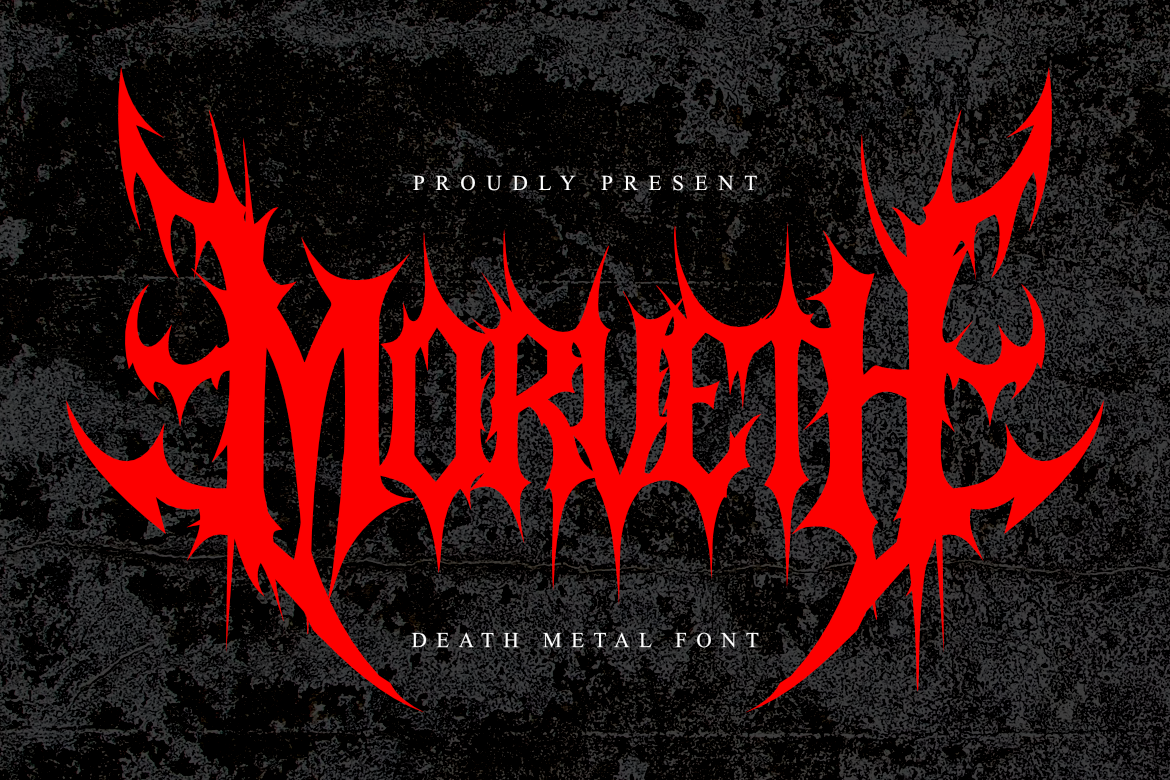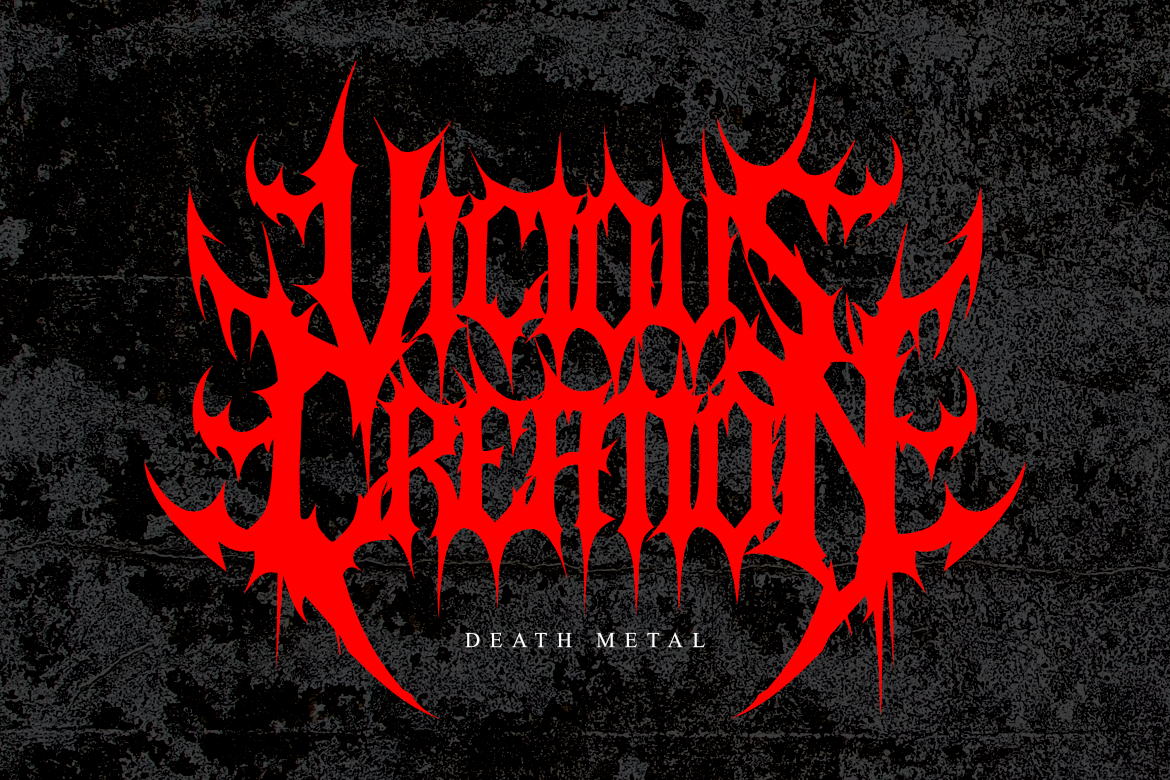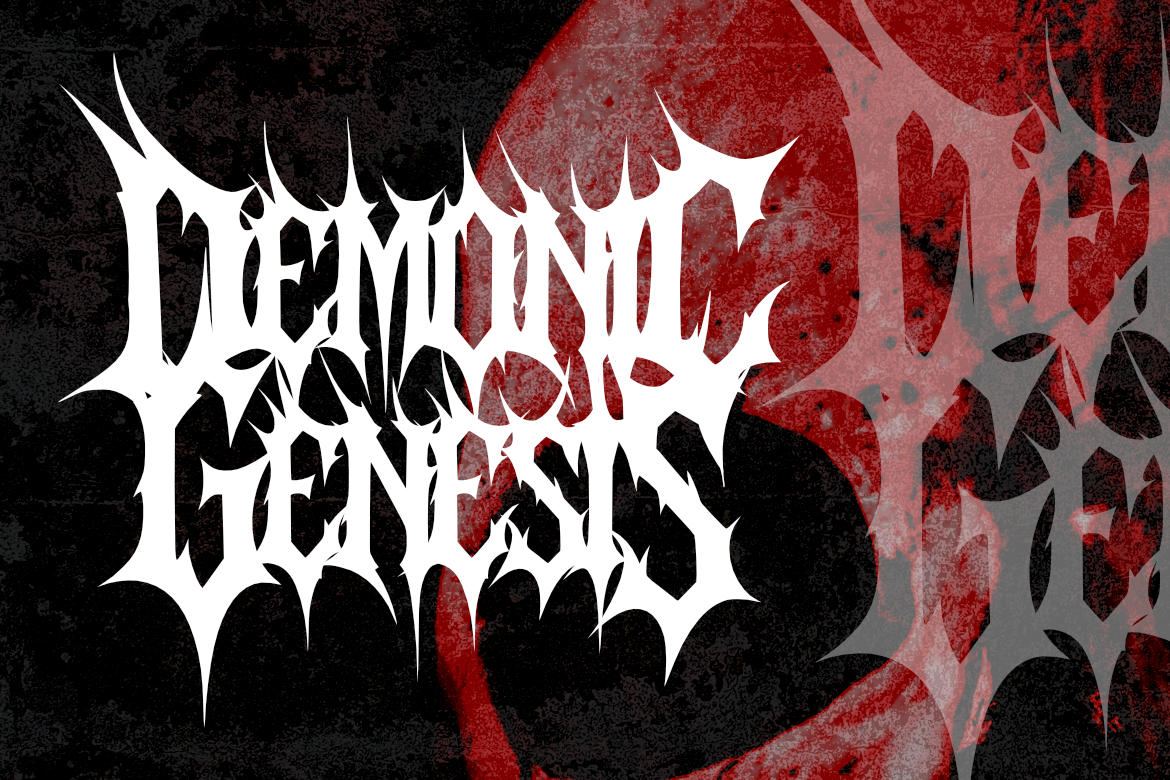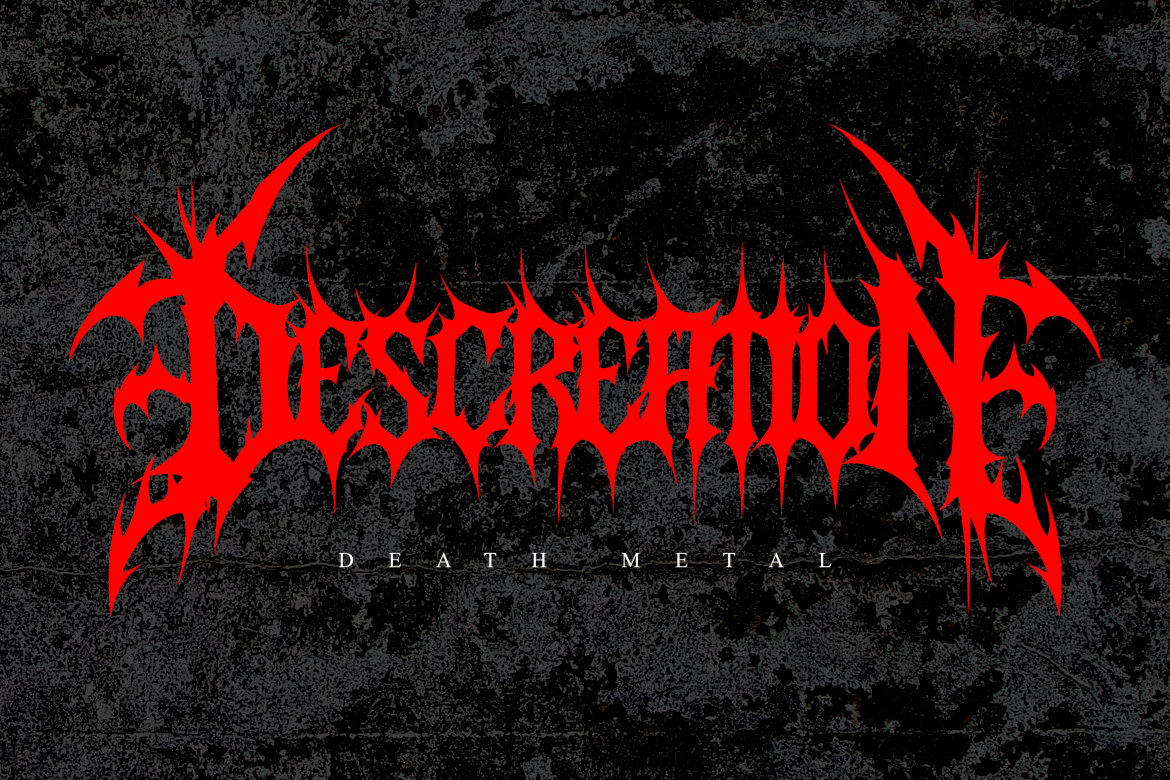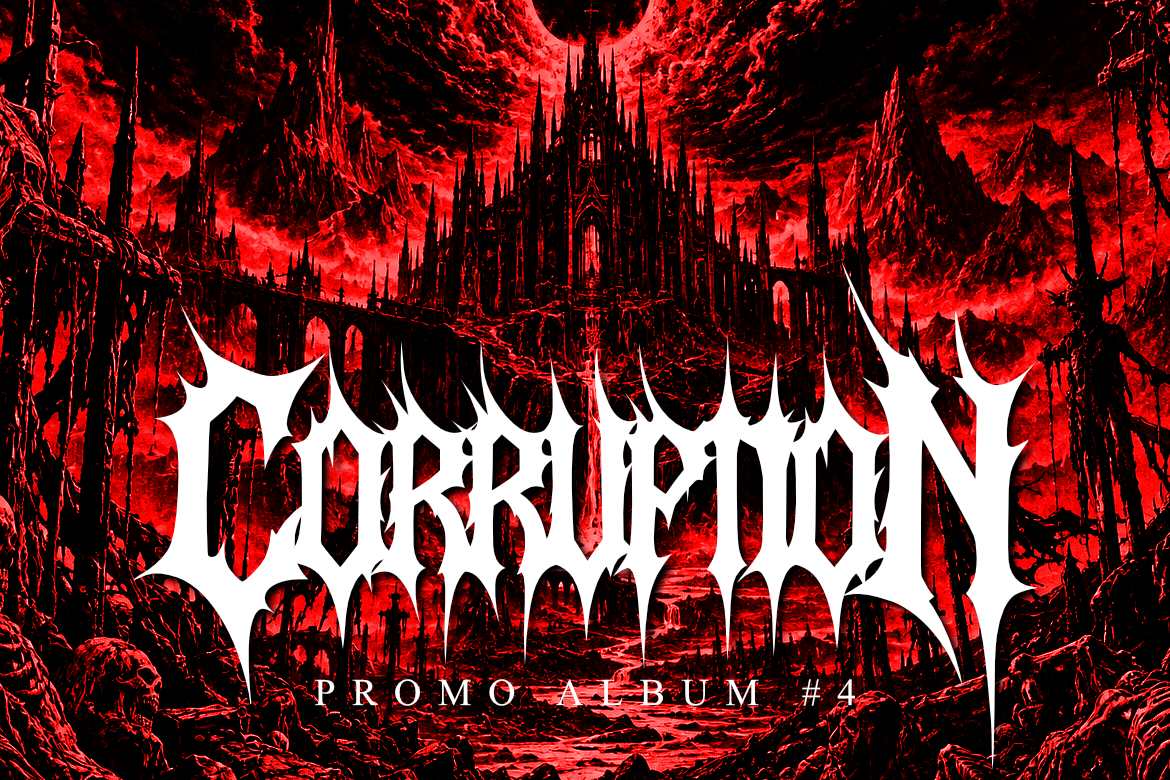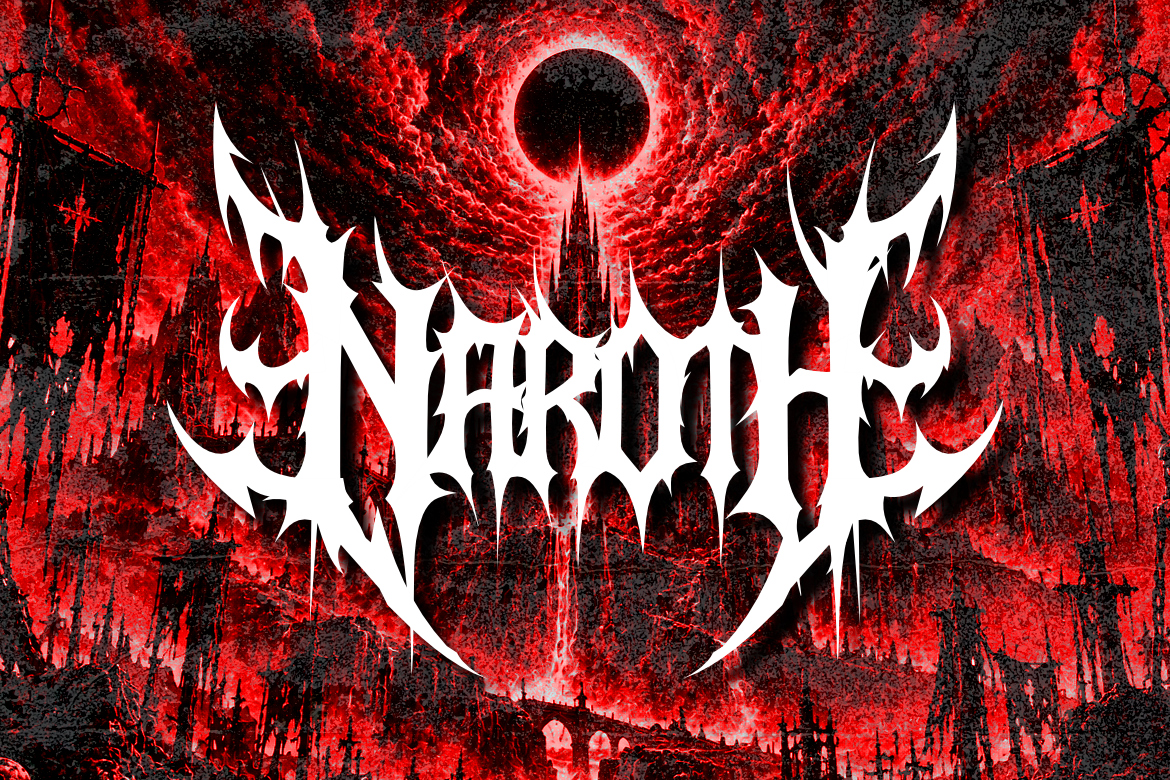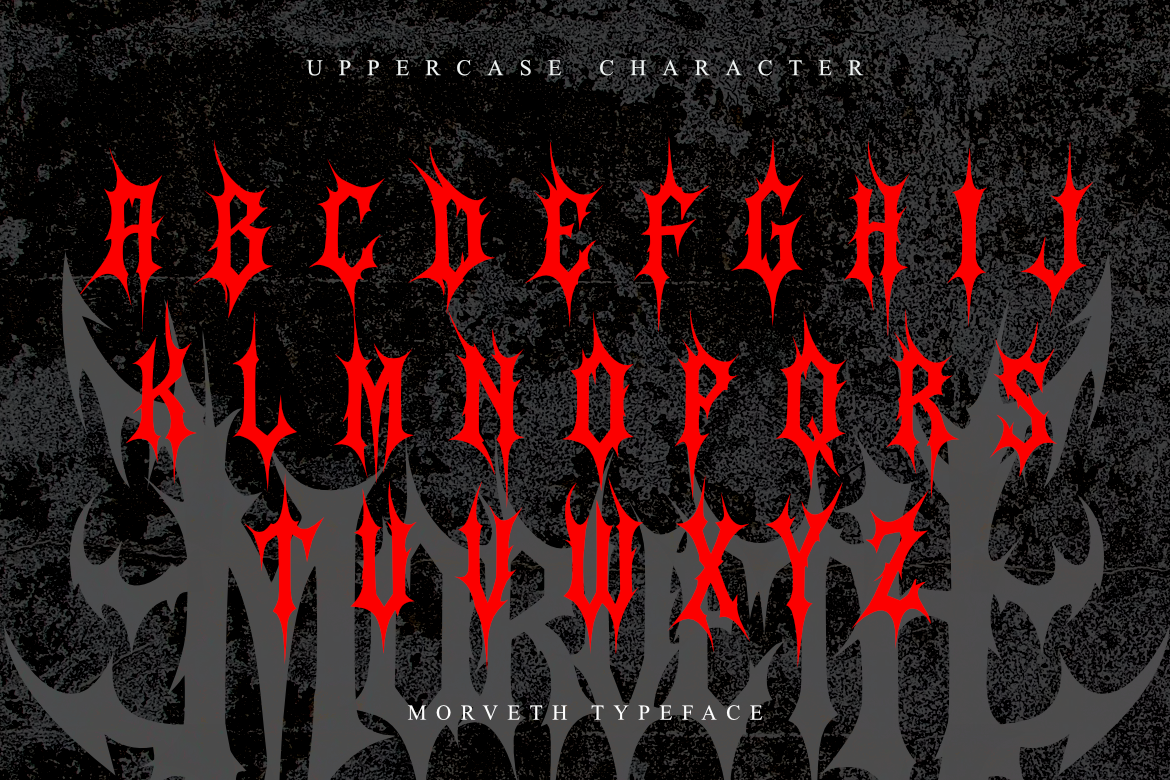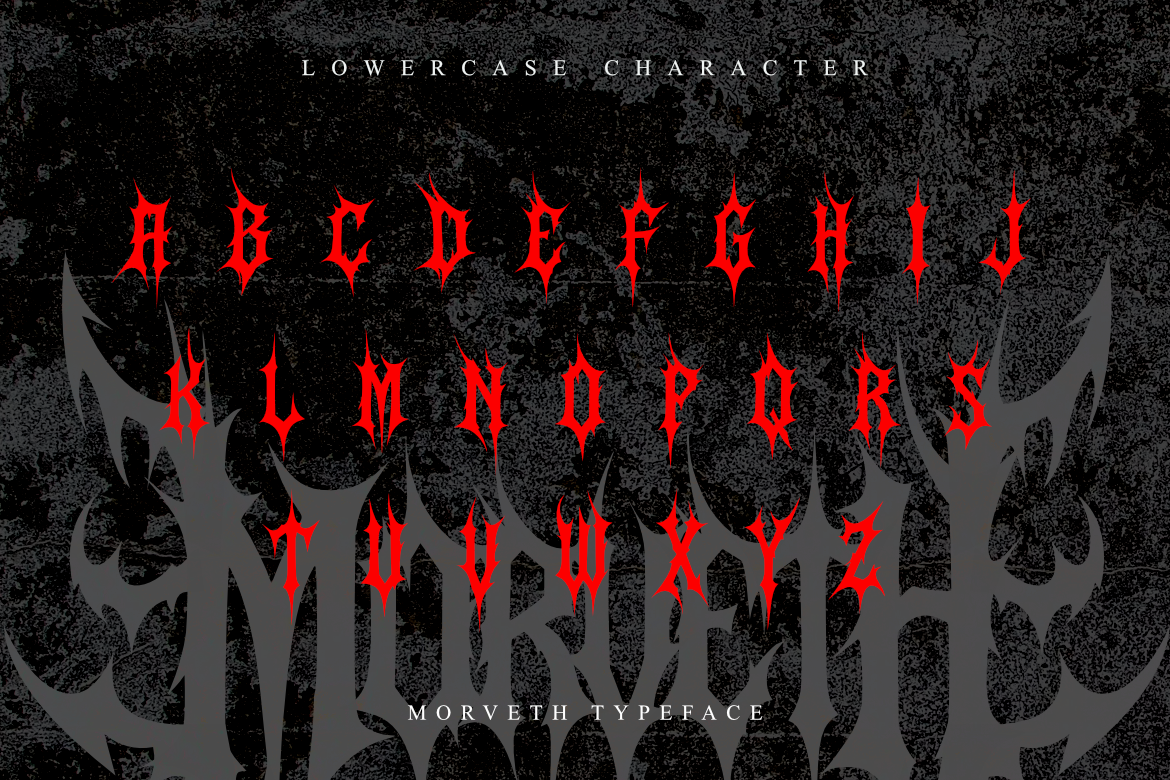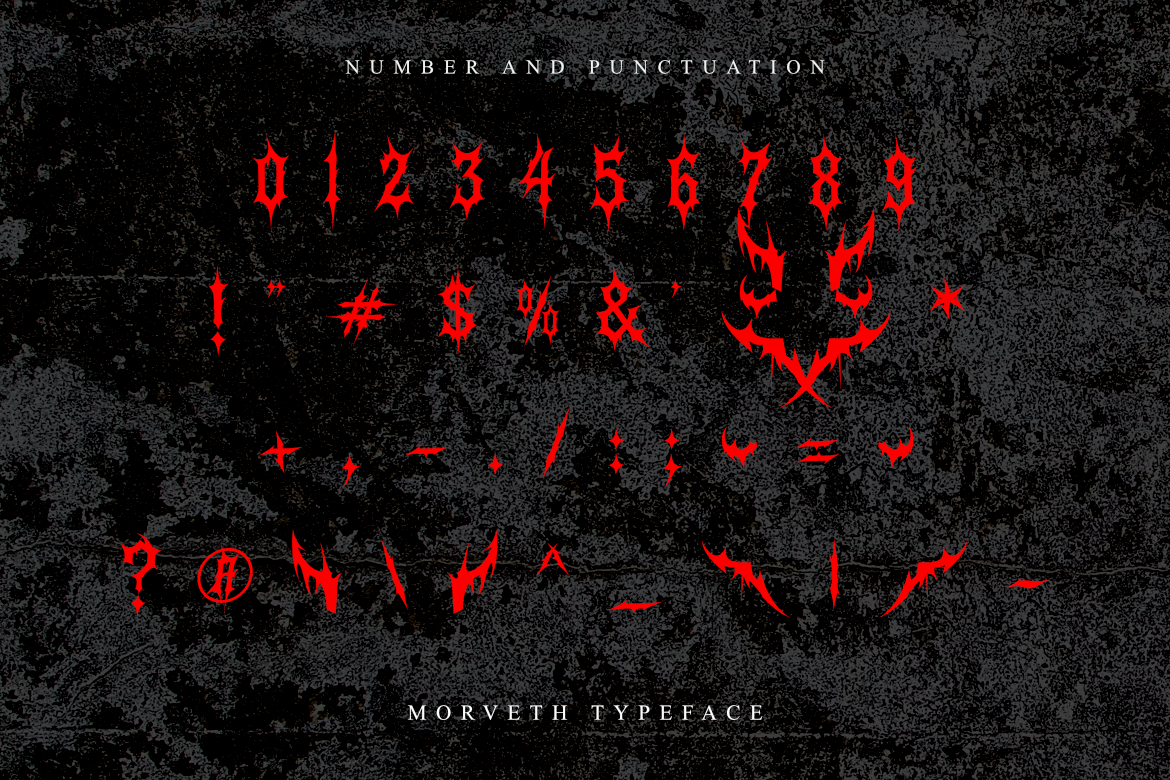
Morveth - Death Metal Font
Morveth is an intense, raw, and aggressive death metal typeface engineered for extreme music culture and dark visual arts.
Inspired by classic blackletter typography and underground metal aesthetics, this font features sharp spiky letterforms, intricate roots, and jagged ornaments that radiate pure dark energy. Its heavy-impact structure and chaotic spiky details deliver an uncompromising visual identity, making it the definitive choice for underground music projects and heavy visual branding.
Whether you are designing iconic band logos, extreme metal album covers, festival posters, dark streetwear apparel, or horror merchandise, Morveth ensures your design commands a formidable and authoritative presence.
Designed for maximum raw impact, Morveth empowers metal bands, underground illustrators, and graphic artists to create legendary, dark-themed visual art across digital and print mediums.
• Authentic extreme death metal and blackletter display style.
• Sharp, intricate spiky letterforms and decorative thorns.
• Ideal for band logos, album covers, merch, and horror art.
• High-impact visual presence for extreme music branding.